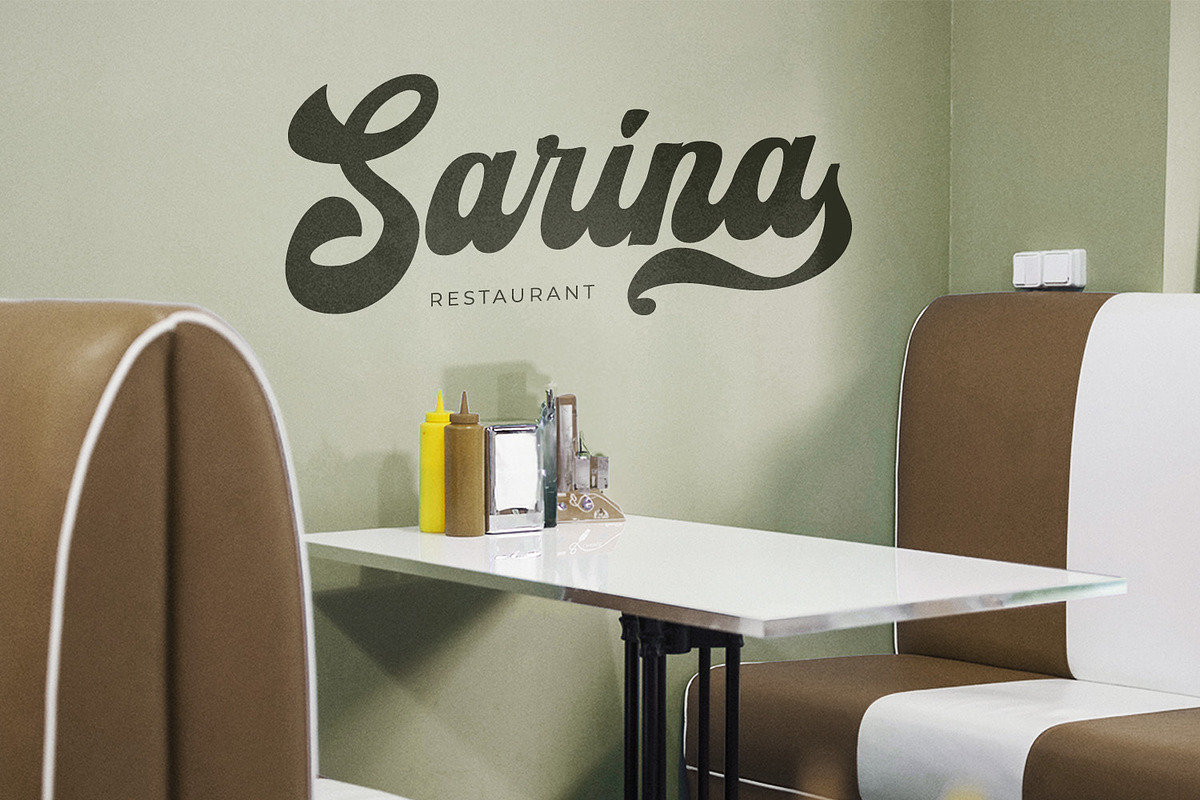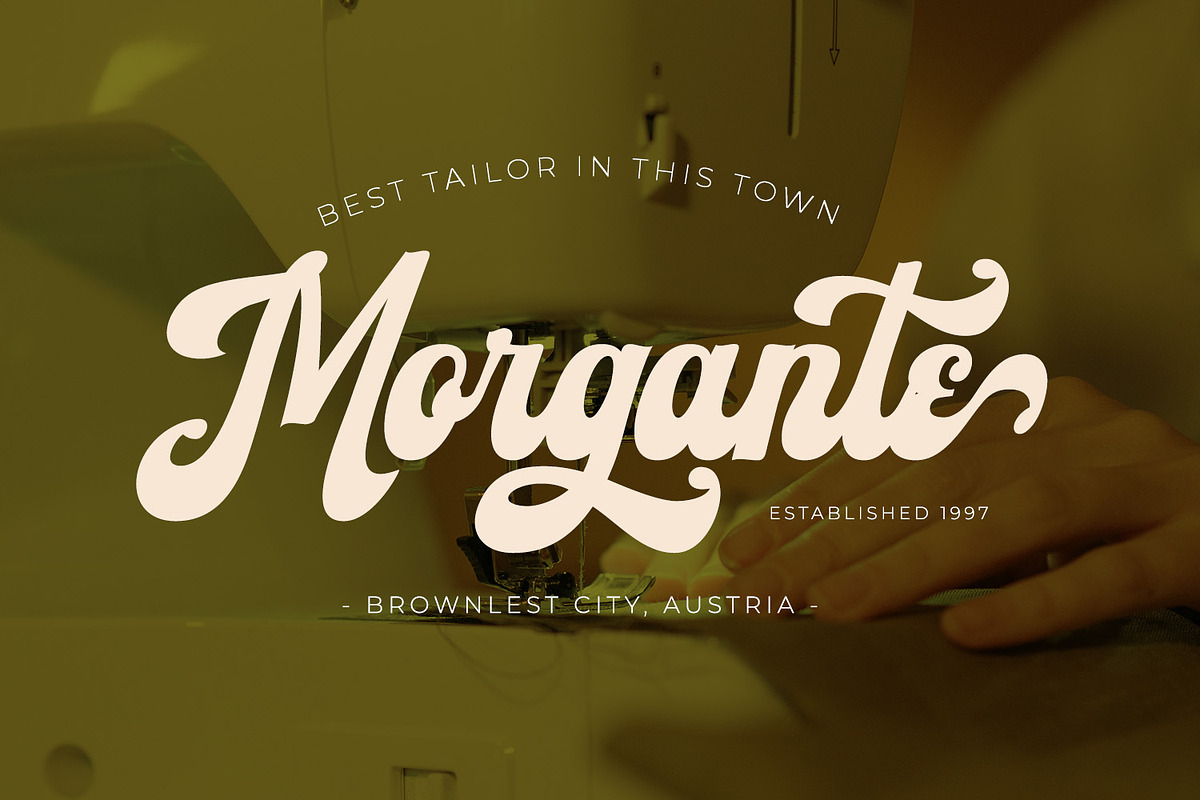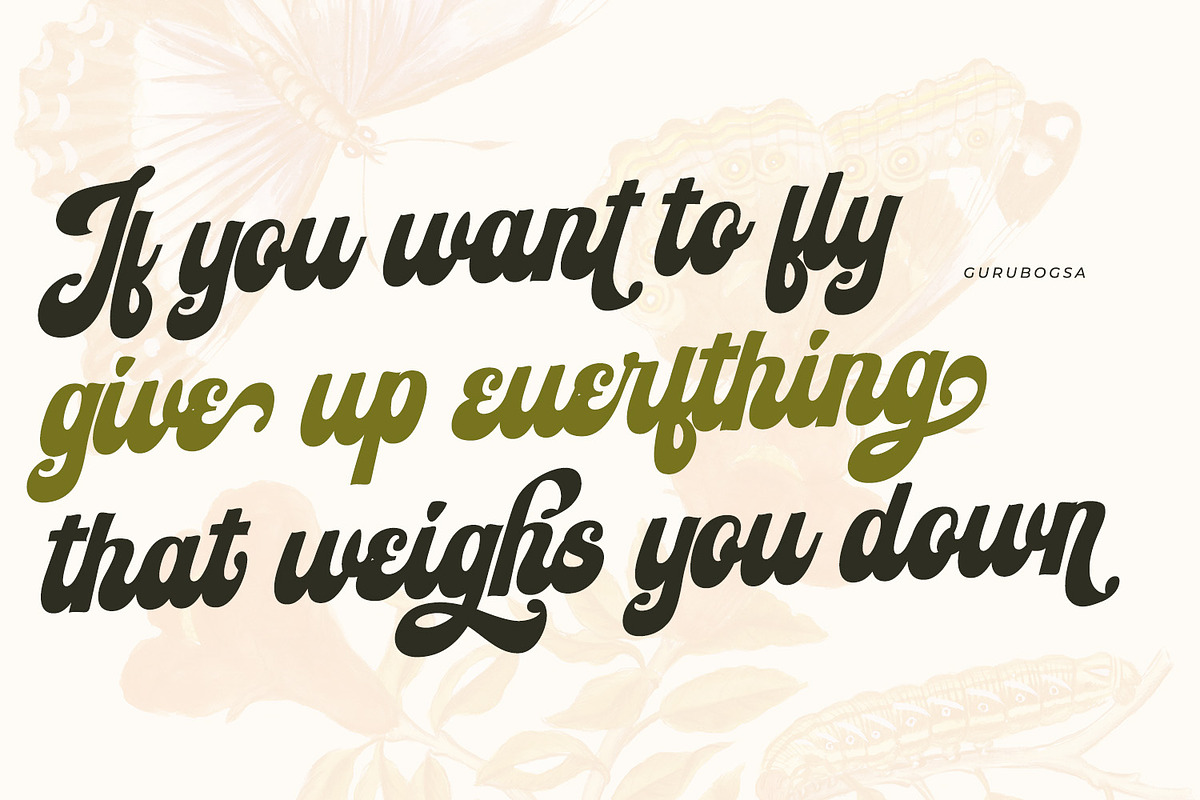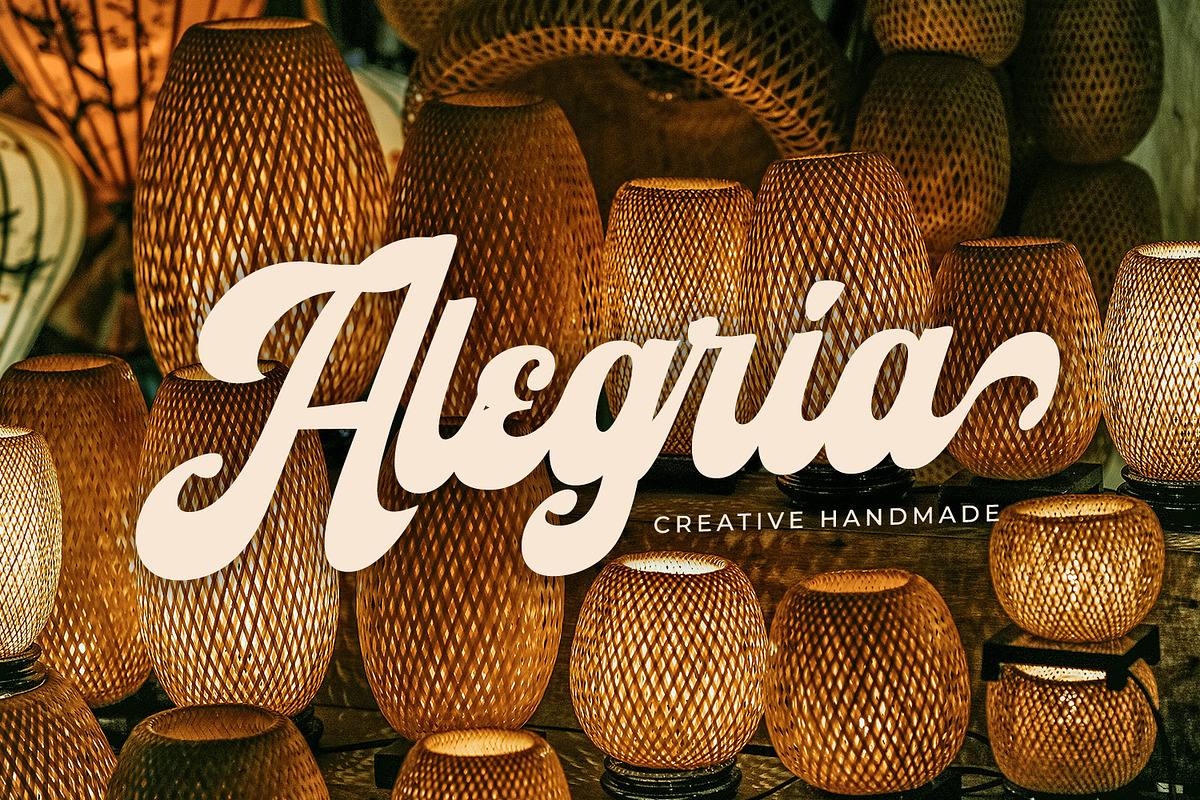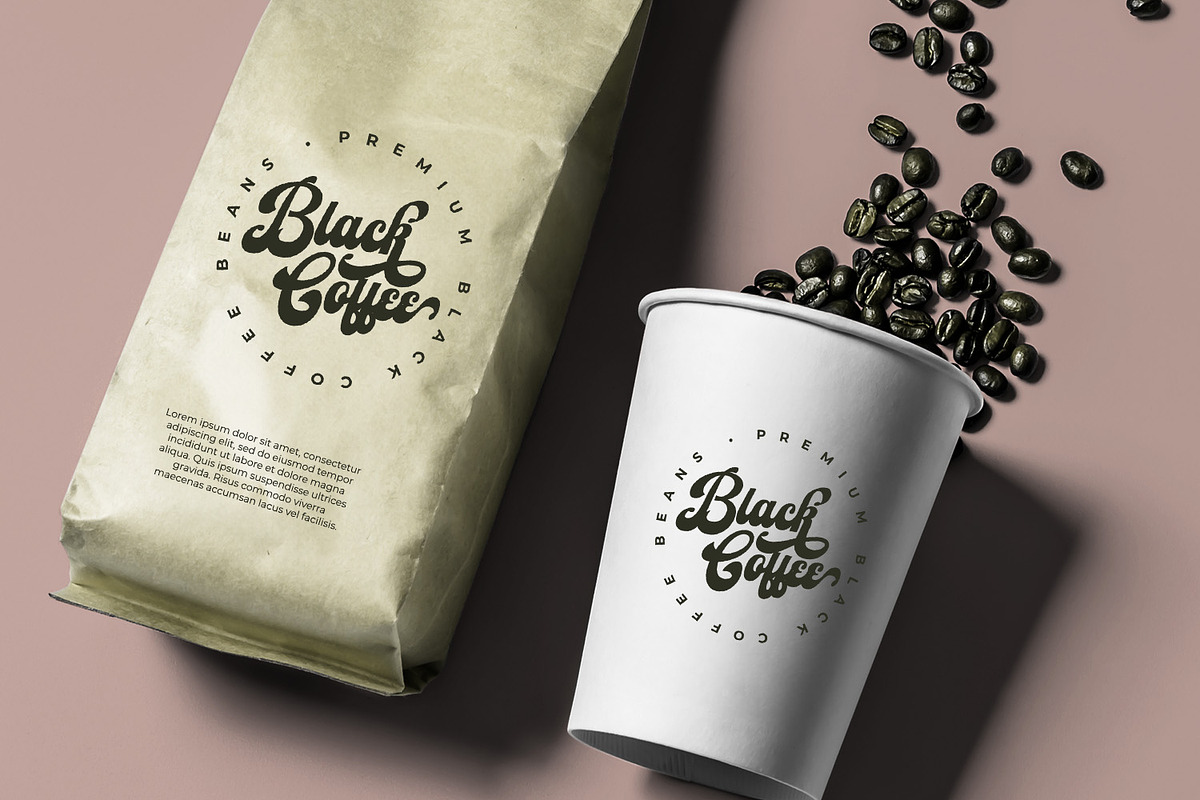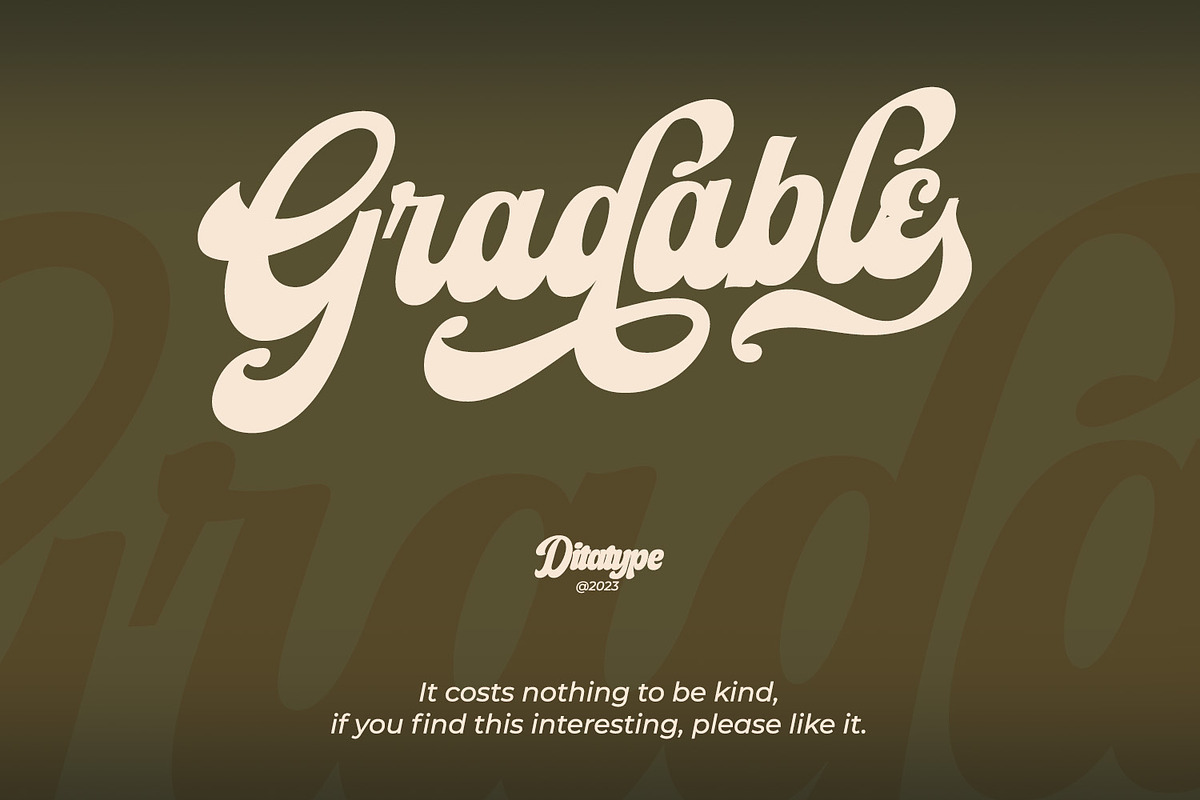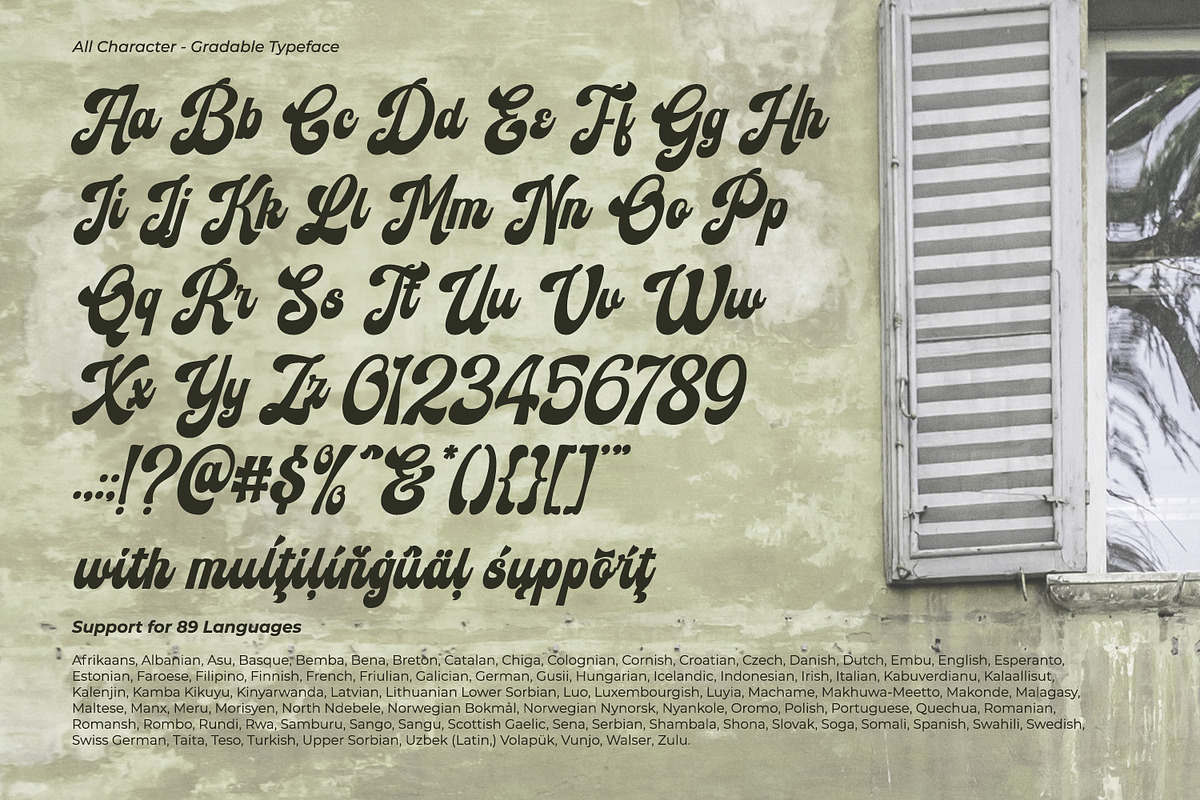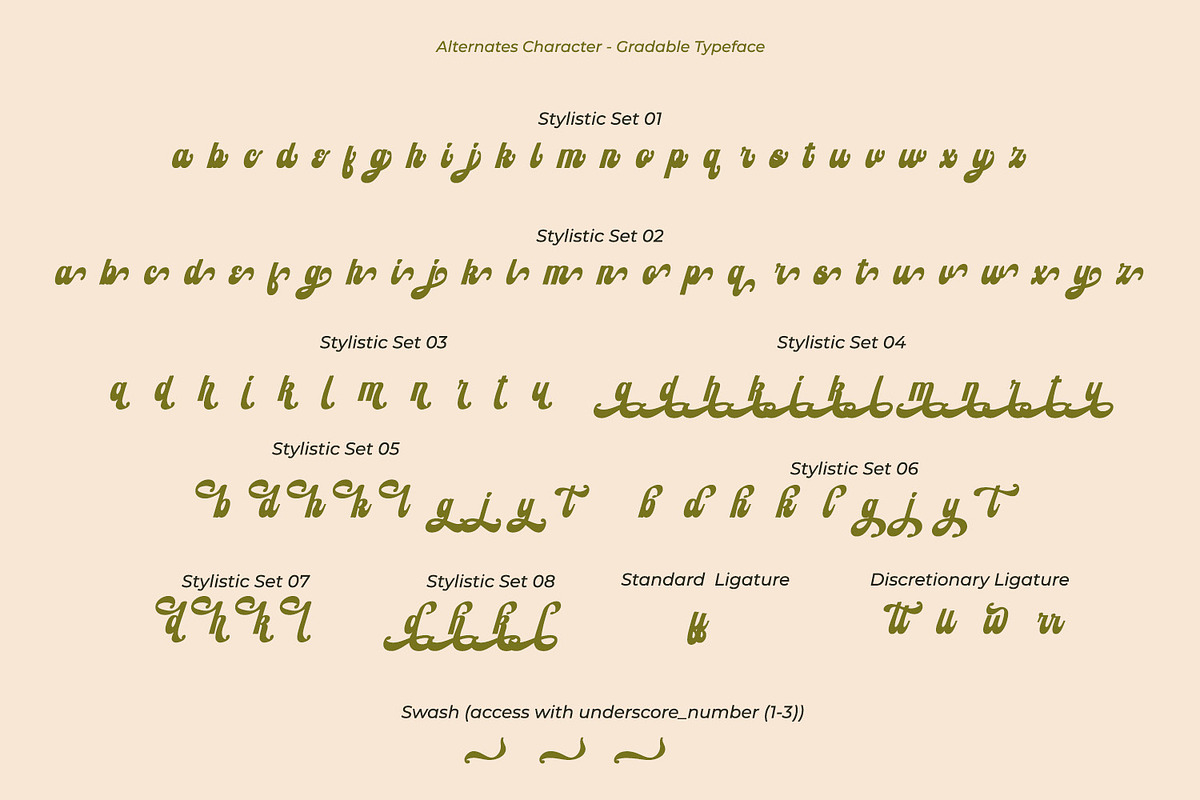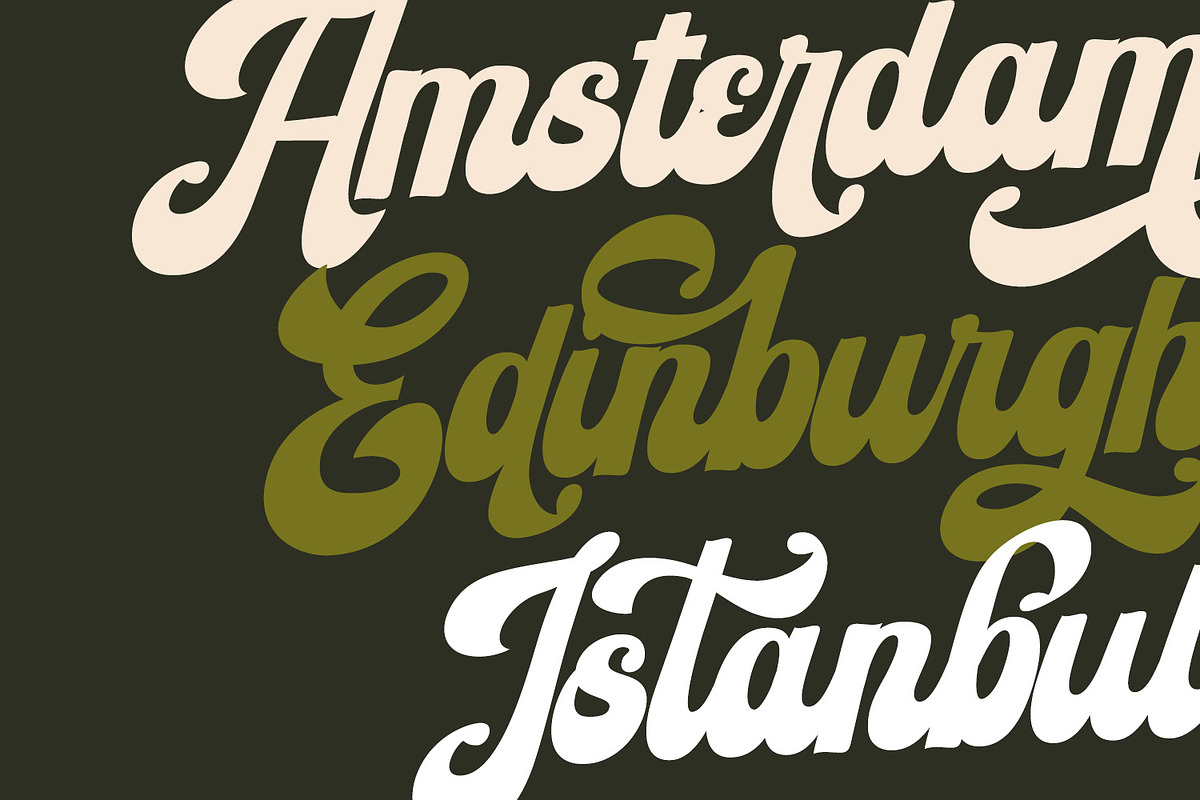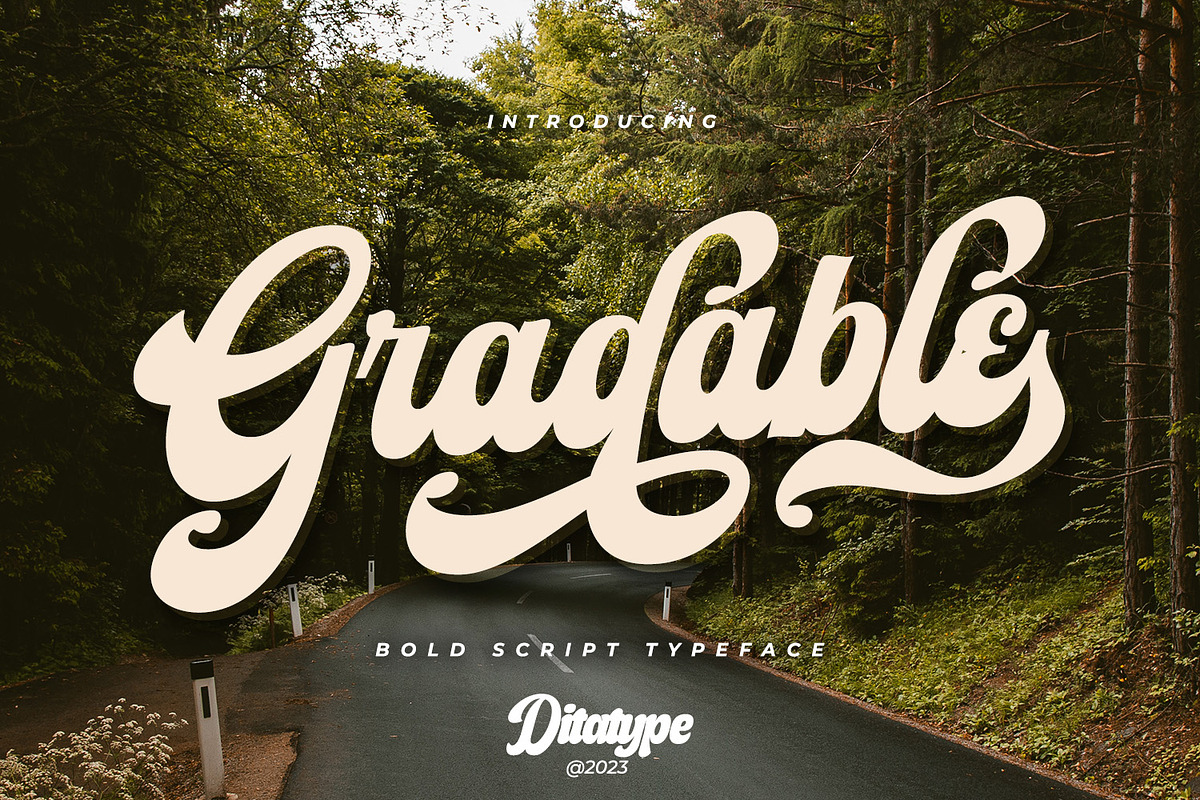
Gradable
Introducing Gradable, a mesmerizing script font that seamlessly blends elegance with boldness. This unique typeface is characterized by its graceful, connected letters that flow effortlessly from one to the next. With a low-contrast design, this font exudes a sense of stability, What sets Gradable apart is its distinctive swinging endings on select letters, adding a touch of playful sophistication to your text. These stylish flourishes give your words an air of dynamic movement, making your message stand out with a touch of charm. In addition, enjoy the features here.
- Stylistic Sets
Gradable fits in headlines, logos, posters, flyers, branding materials, print media, editorial layouts, and many more designs. Find out more ways to use this font by taking a look at the font preview.